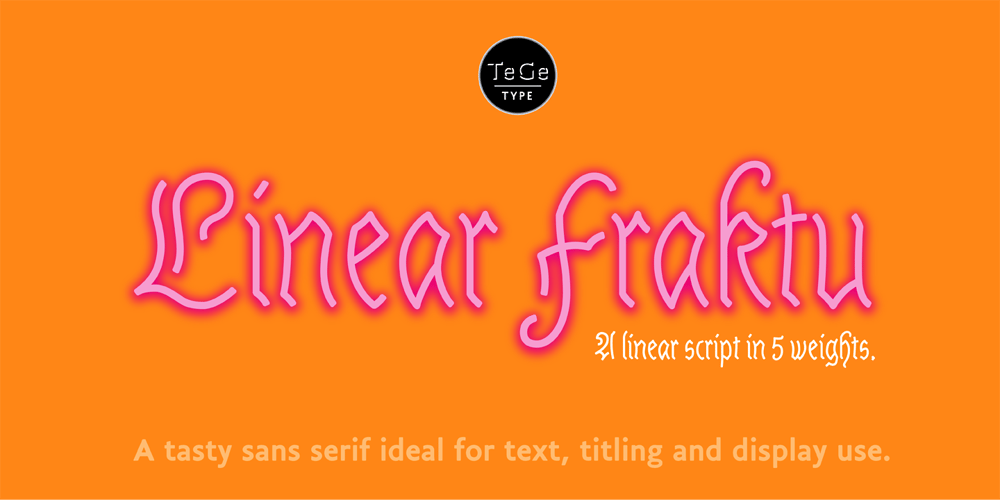
Linear Fraktu
Linear Fraktu font
Linear Fraktu Font Family was designed by Thierry Gouttenègre and published by TeGeType. Linear Fraktu contains 5 styles and family package options. The basic idea of this type family was to keep the “ductus” of the fraktur calligraphy only. And to adapt it to draw a sans serif typography which still keep the magic rhythm and colour of the original letters.